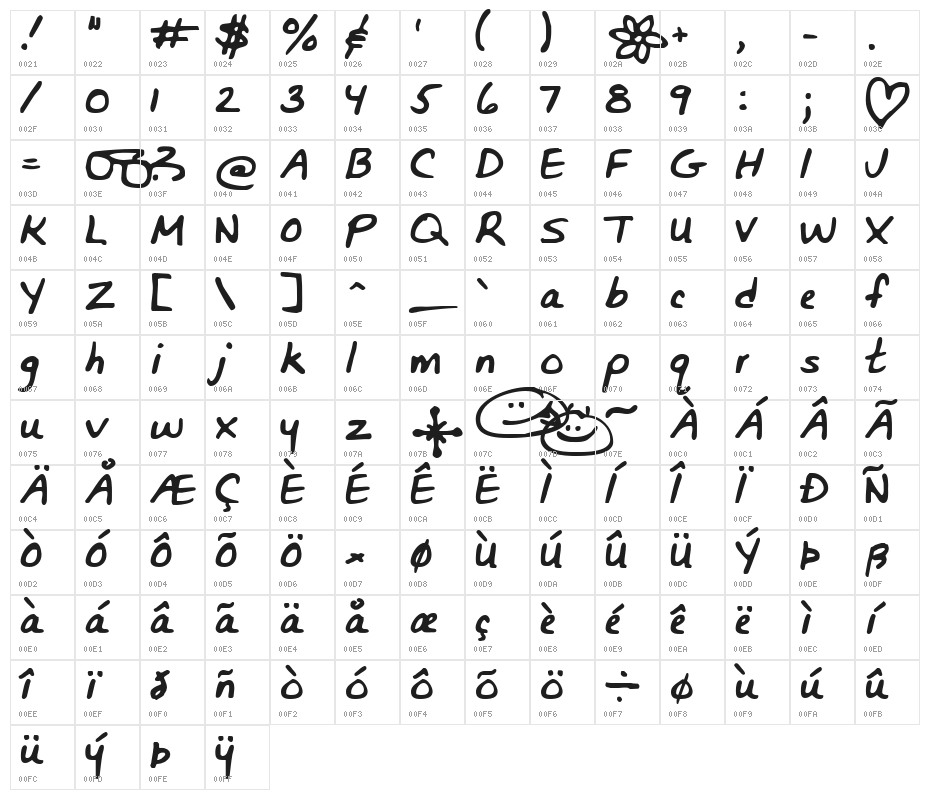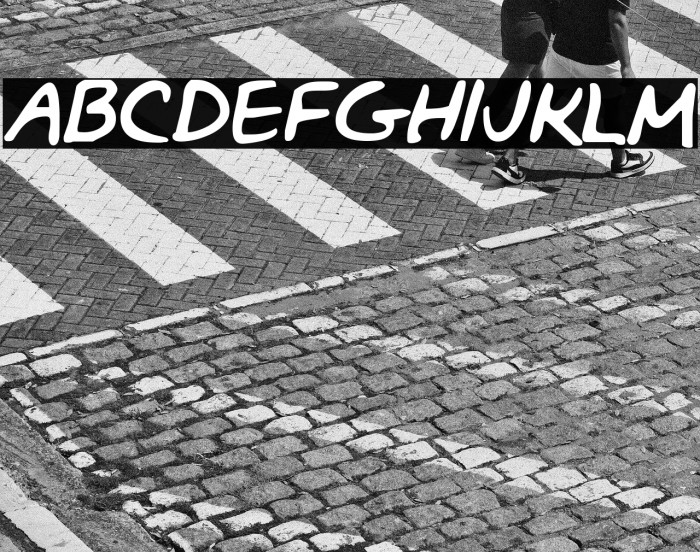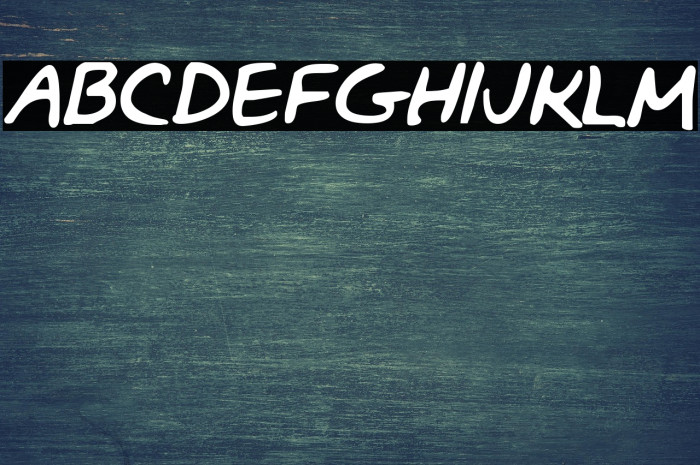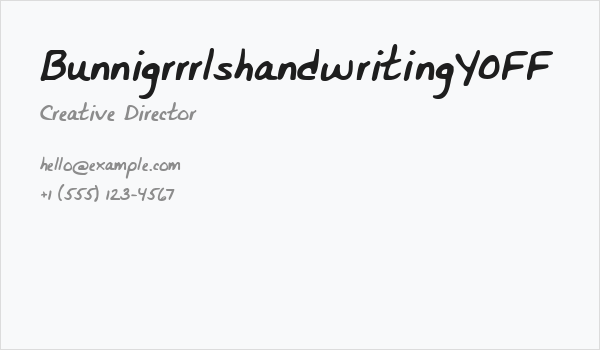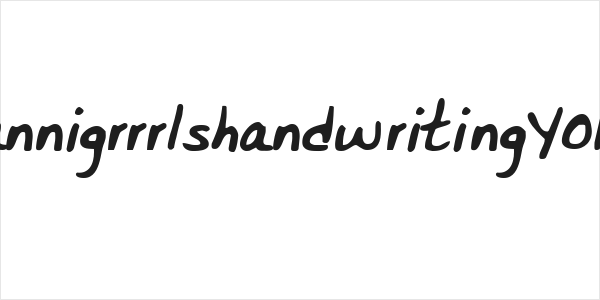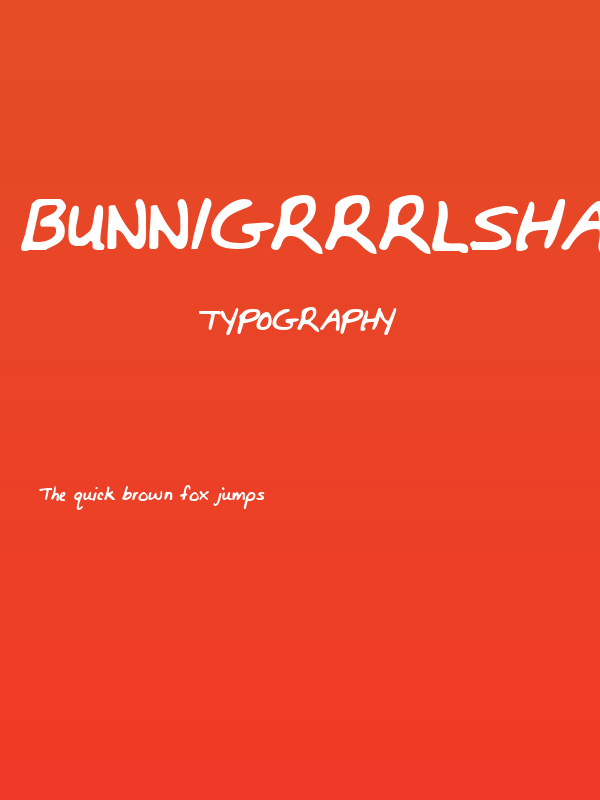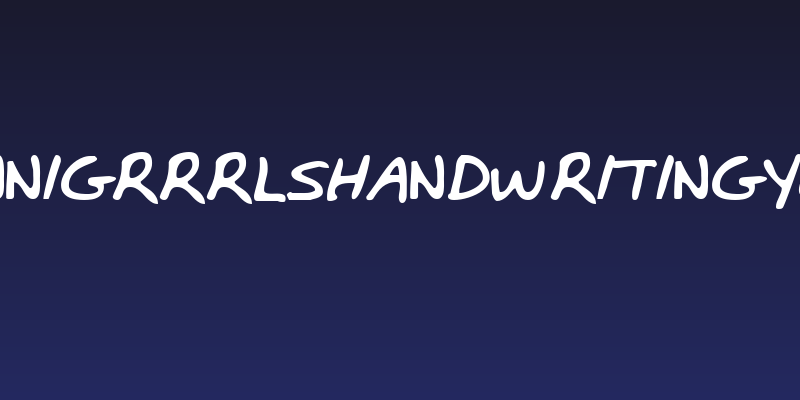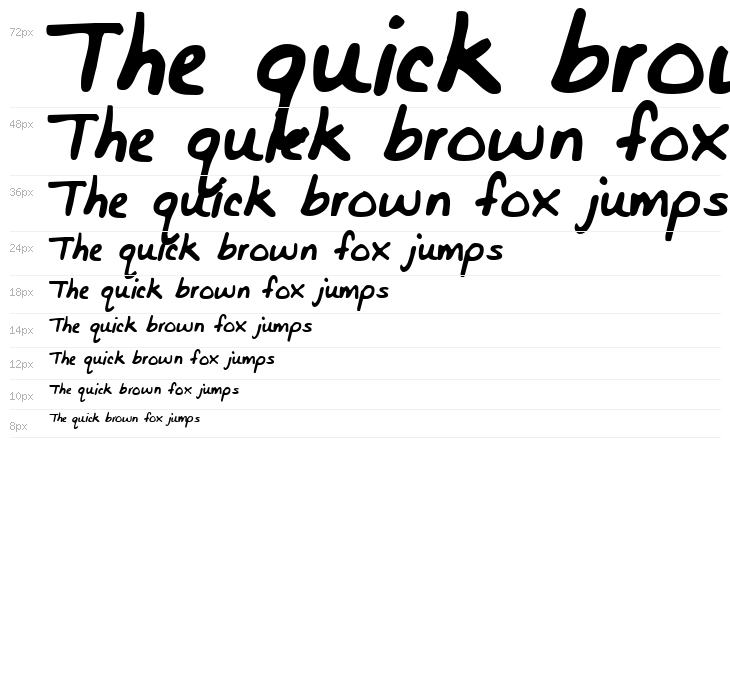
BunnigrrrlshandwritingYOFF Font
BunnigrrrlshandwritingYOFF Description
This playful and energetic font exudes a handwritten charm with its bold, rounded strokes and slightly irregular character shapes. The letters have a casual, friendly appearance, reminiscent of personal notes or informal signage. The uppercase and lowercase letters maintain a consistent style, with a slight slant that adds to the dynamic feel. Numbers and special characters are equally expressive, ensuring a cohesive look across all text elements. The font's unique personality makes it ideal for projects that require a touch of whimsy and creativity.
| Overall Style | Playful, Casual |
| Use Case | Headlines, Informal Text, Creative Projects |
| Proposed Projects | Ideal for greeting cards, children's books, playful branding, and creative social media graphics. |